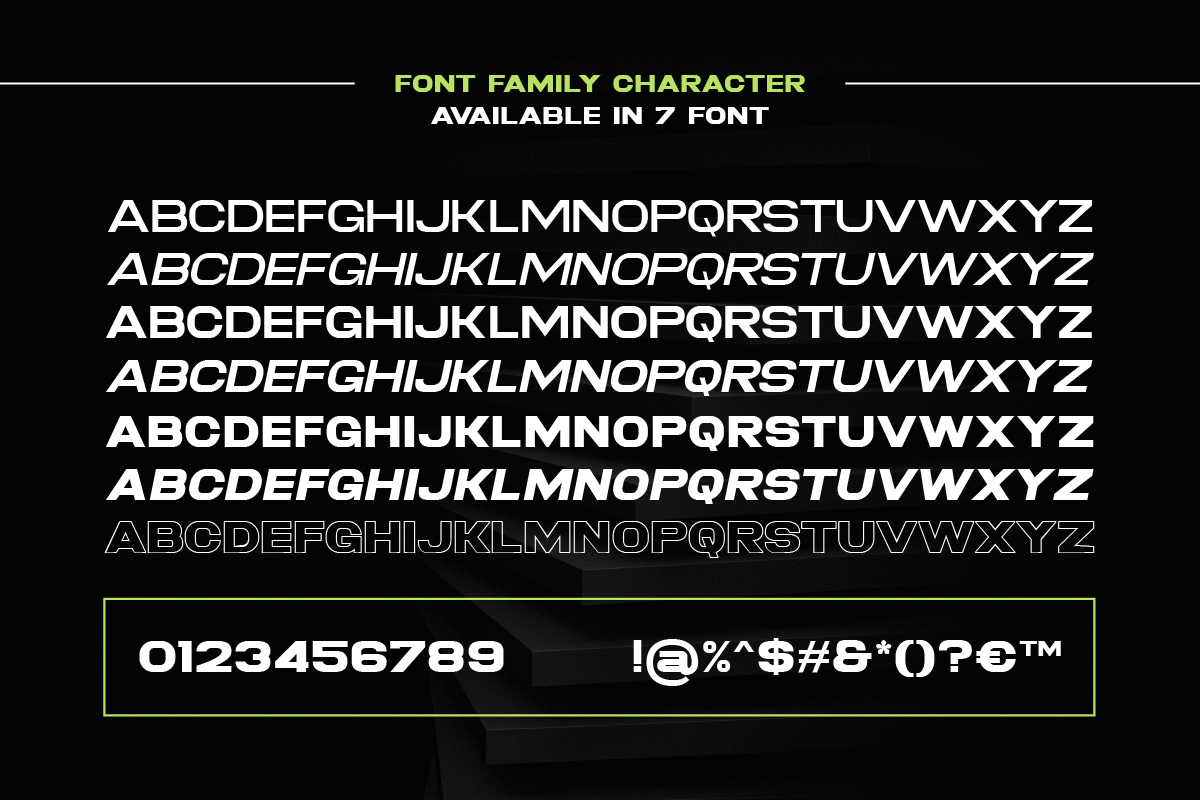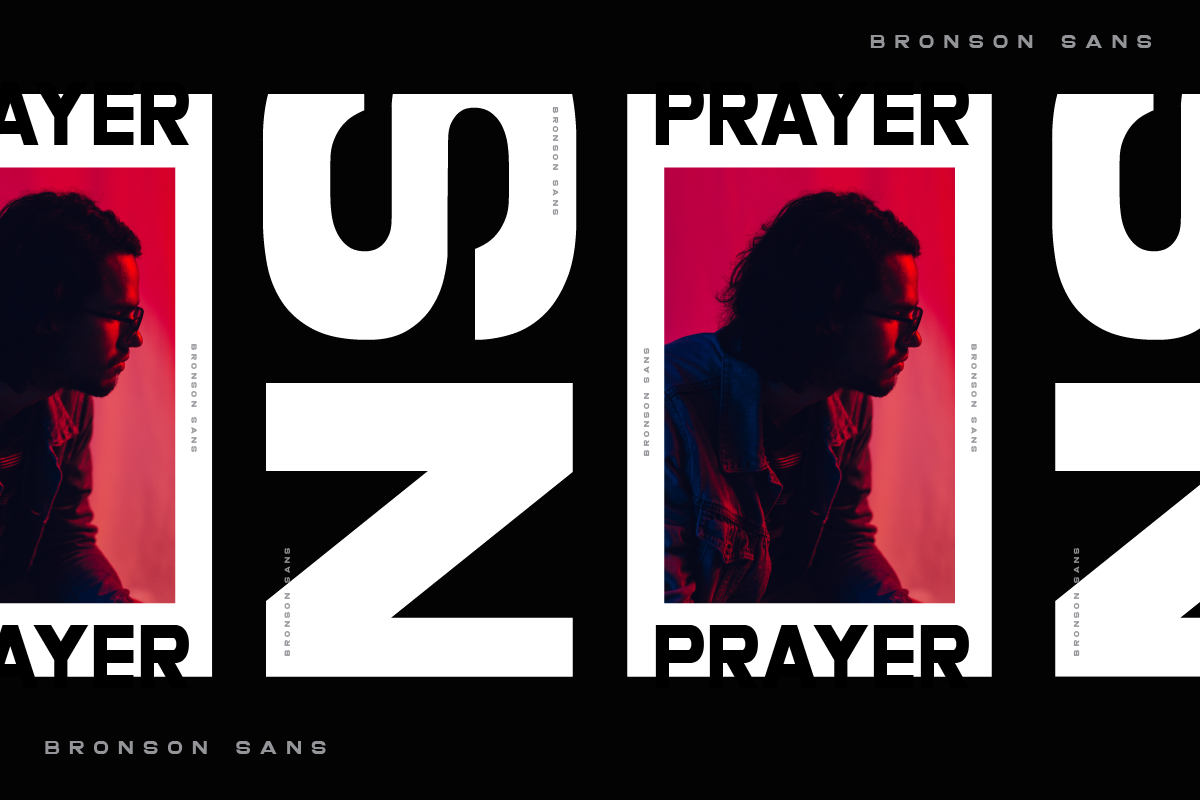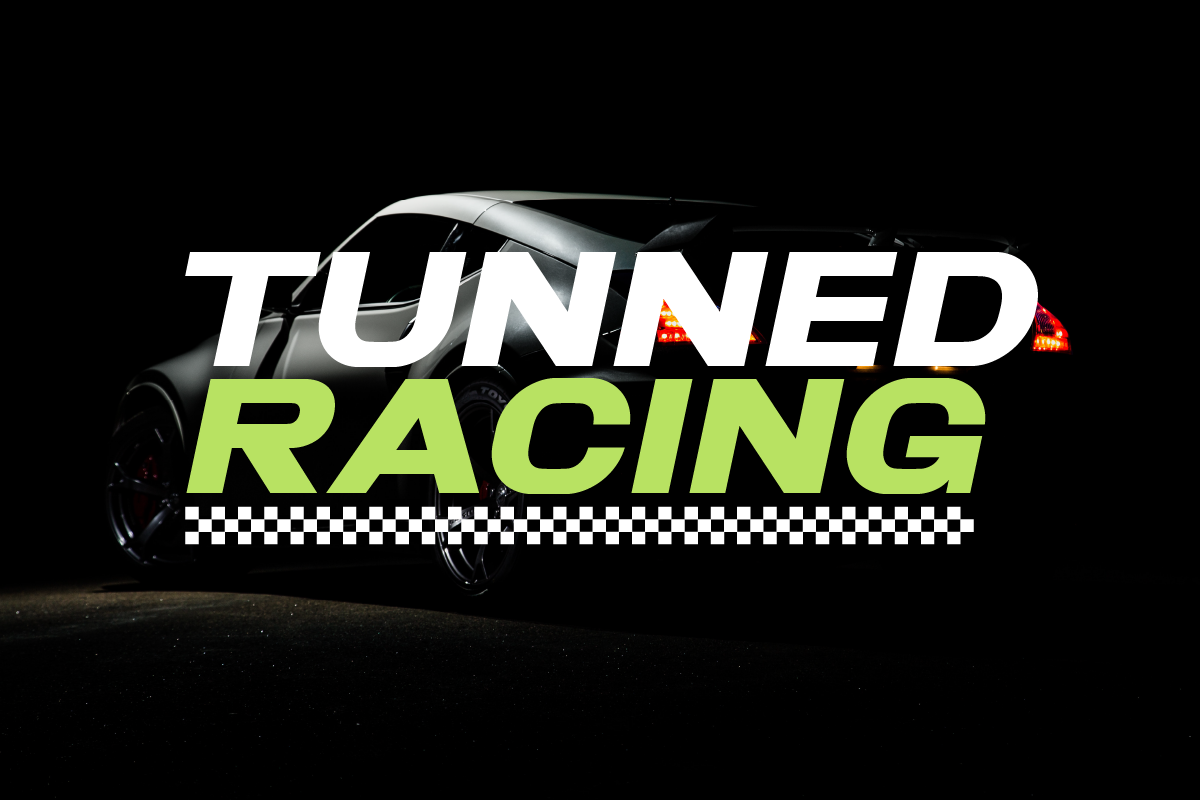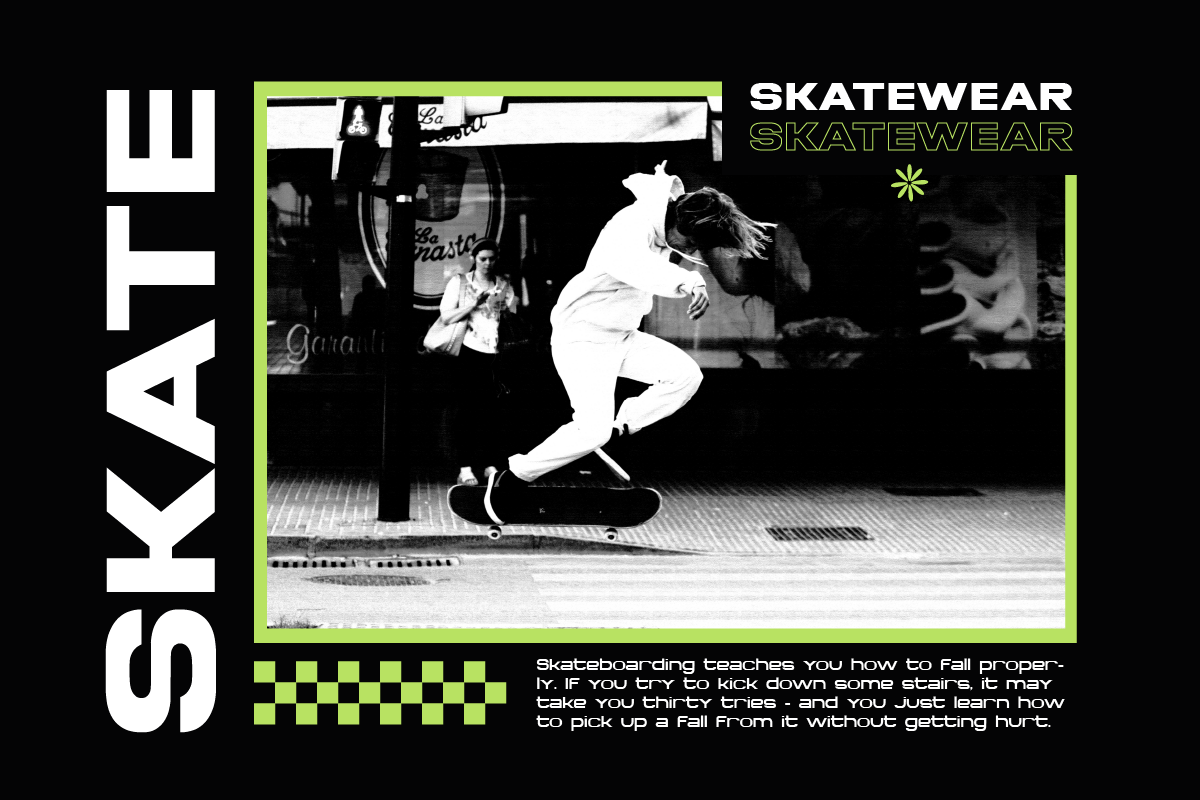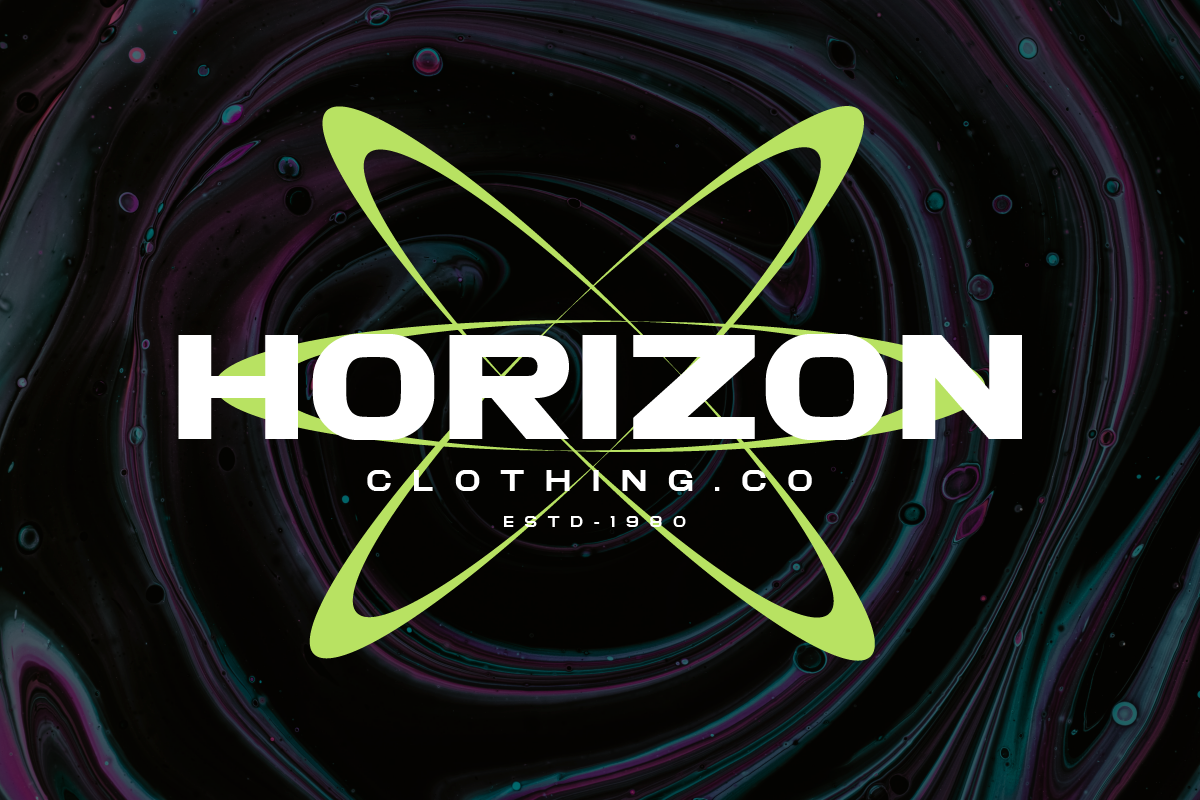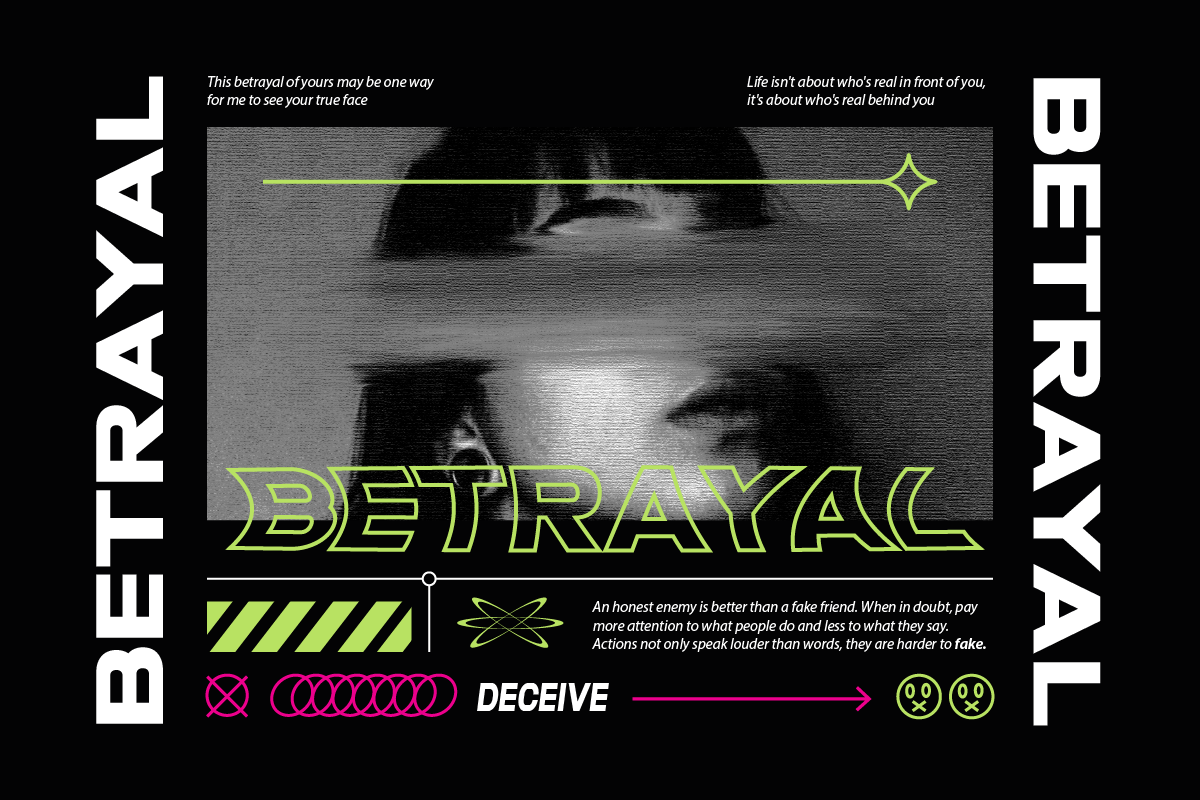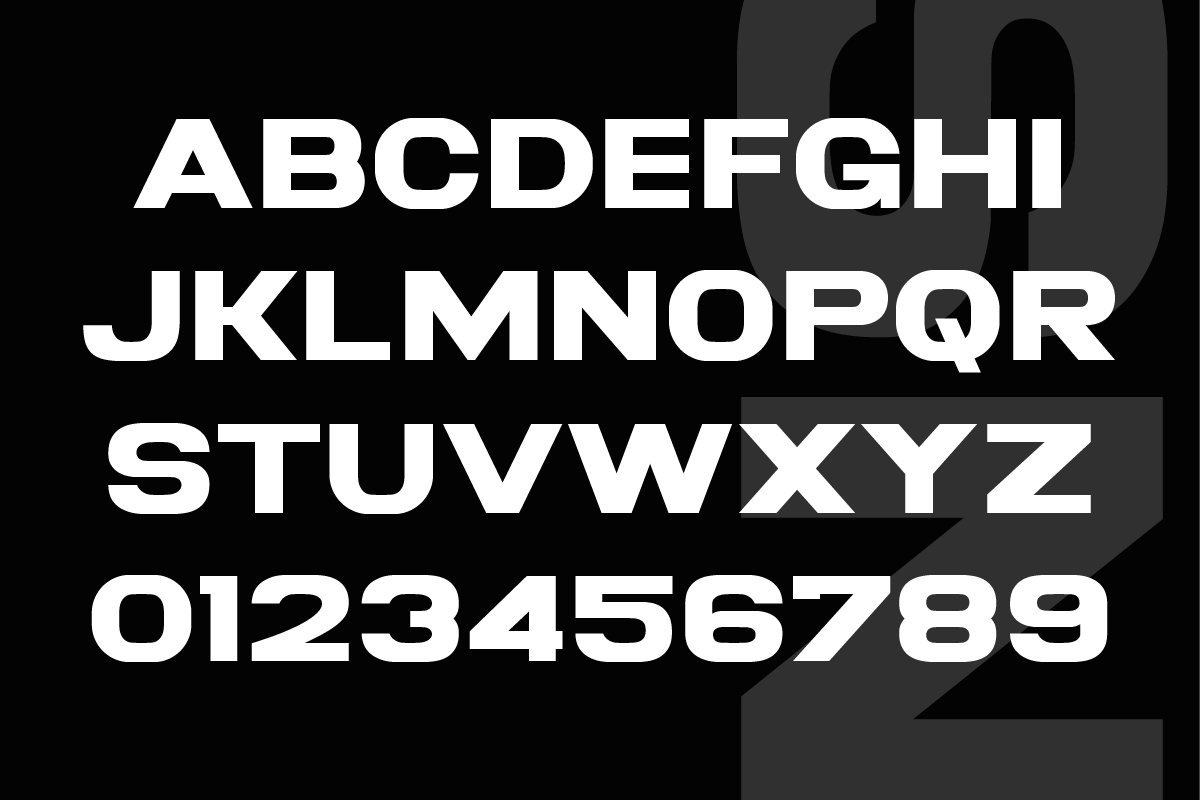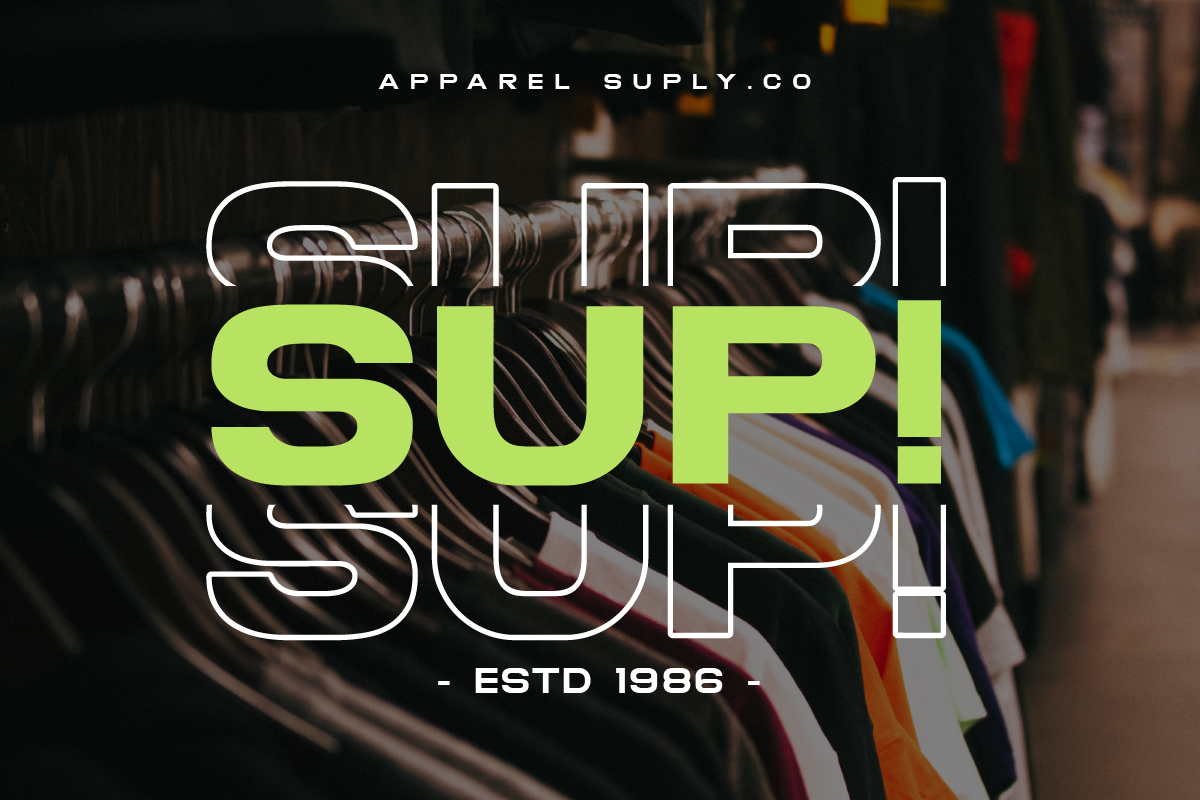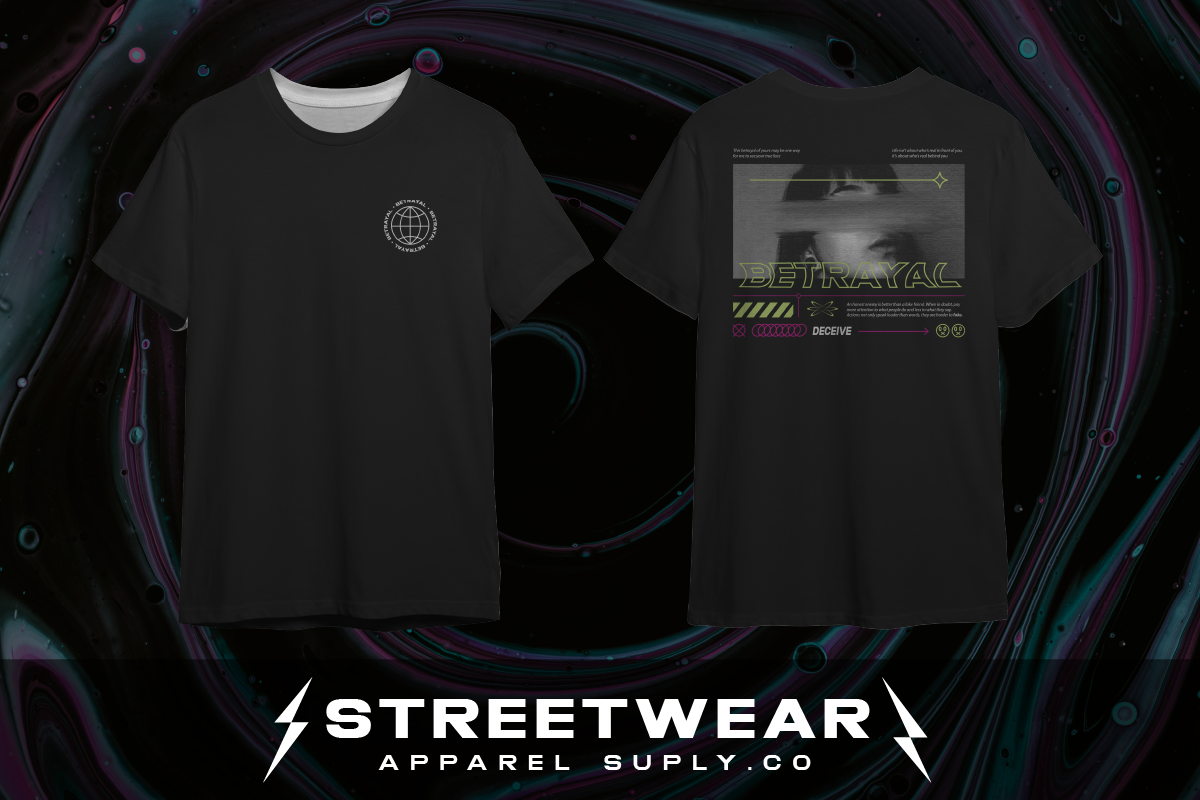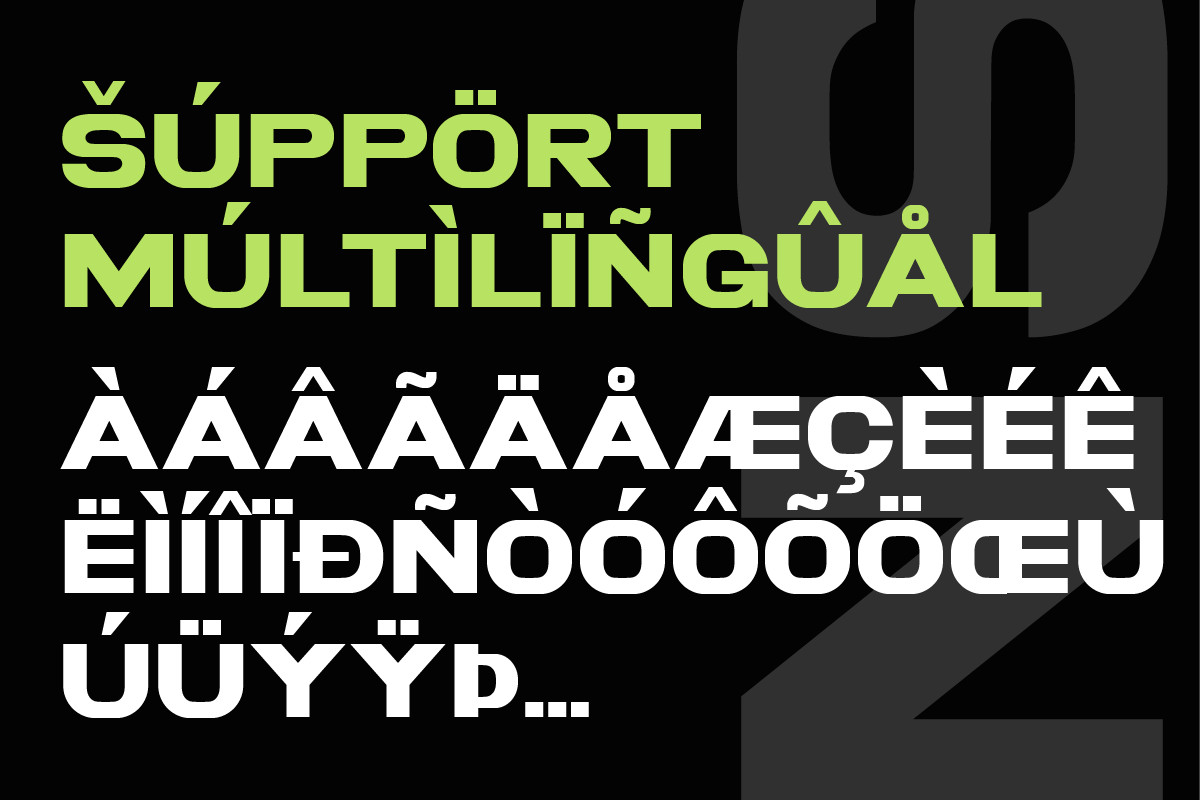
Bronson Modern Sans Typeface Family
Bronson – A Cutting-Edge Sans Serif Font Family for Modern Design 🚀
Bronson is a bold, futuristic, and modern sans serif typeface that blends sleek geometry with contemporary aesthetics. Perfect for branding, tech-inspired projects, editorial layouts, and eye-catching posters, Bronson delivers versatility and power in seven distinct styles.
🔠 Key Features:
✅ 7 Font Styles – Includes Regular, Italic, and more for creative flexibility.
✅ Modern & Futuristic – Ideal for technology, gaming, sports, and branding.
✅ Sleek & Stylish – Designed with sharp angles and clean curves.
✅ Multilingual Support – Covers multiple languages for global use.
🚀 Perfect for: Tech Branding, Cyberpunk Aesthetics, Posters, UI/UX, and More!